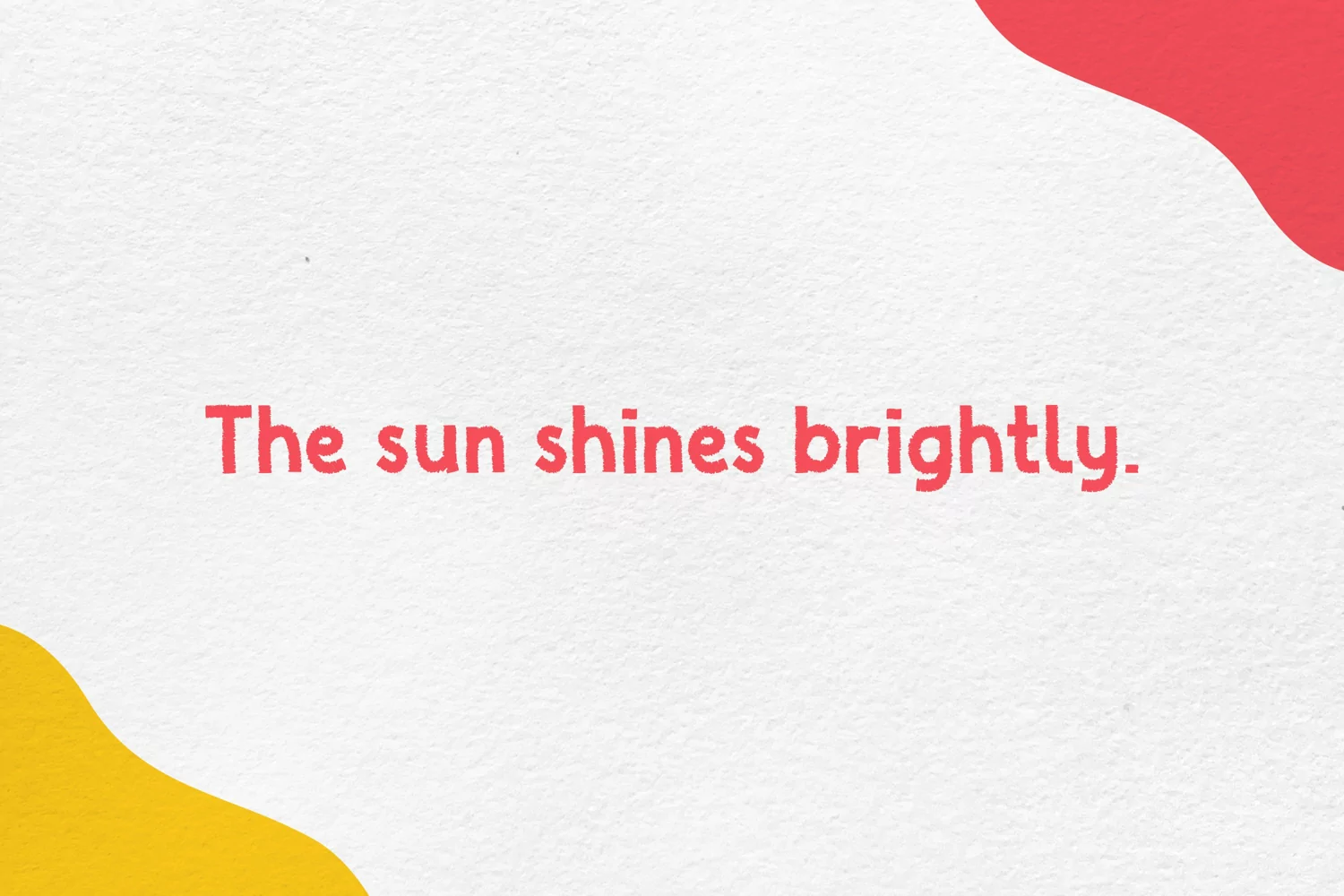
Dry Pastel is a cute sans serif font. It is perfect for posters, printed quotes, stickers, digital designs, or other designs that require crayon or chalk style font.
DryPastel